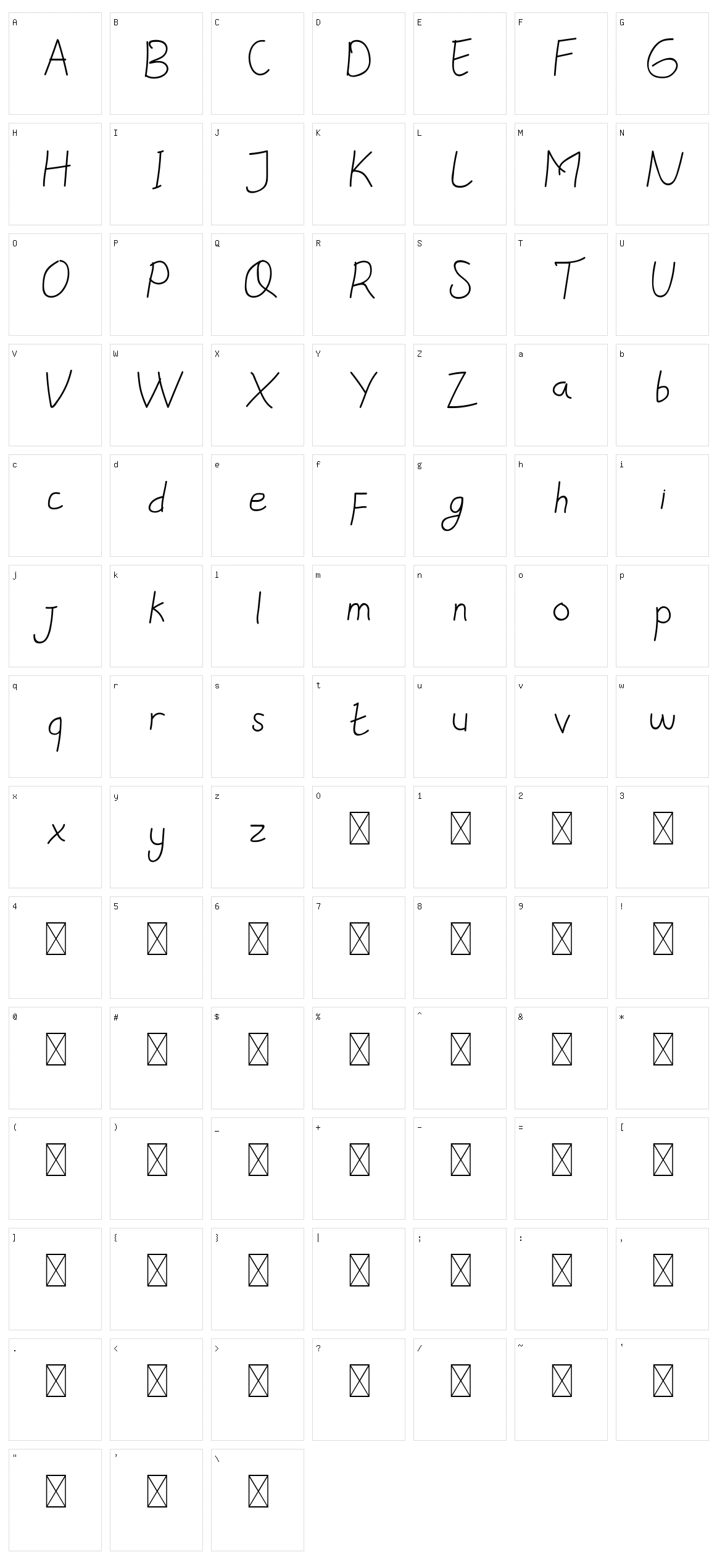
The free font Sillmy Sans is carefully designed by Edric Studio, showcasing a thoughtful balance of creativity and usability and falls under the Script font style. When you download the ZIP file, it contains only 19.23 KB of font files, making it lightweight and quick to download. Please review the license details below to understand permitted usage and distribution rights. If license information is not available, we recommend using this font for personal projects only or contacting the author directly for commercial usage permissions.